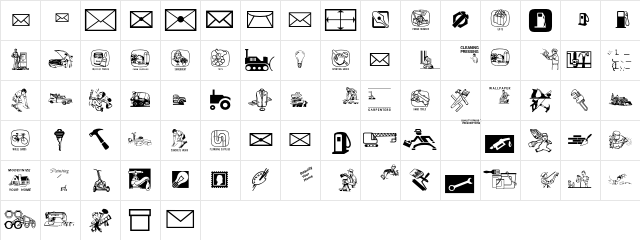
Complete BusinessServices P01 glyph index. Displaying only characters natively supported by BusinessServices P01 font.
BusinessServices is a composed and adaptable typeface that performs quietly and consistently across a wide range of design contexts.